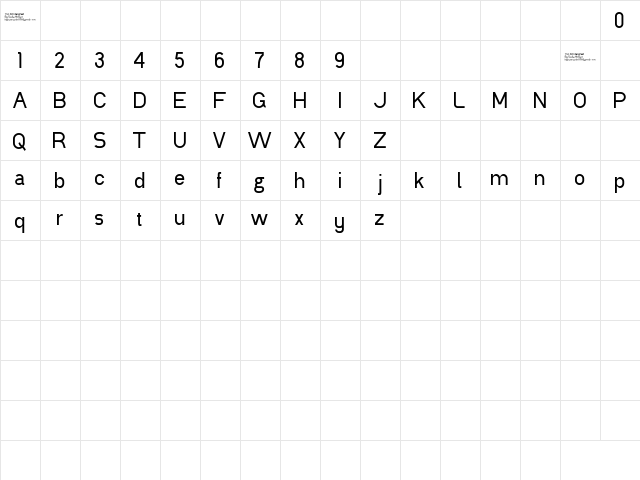
Luxima Regular
Design Context for Luxima Typeface
Luxima takes a measured approach to typography — its balanced proportions and neutral character make it a reliable workhorse for both digital and print work.